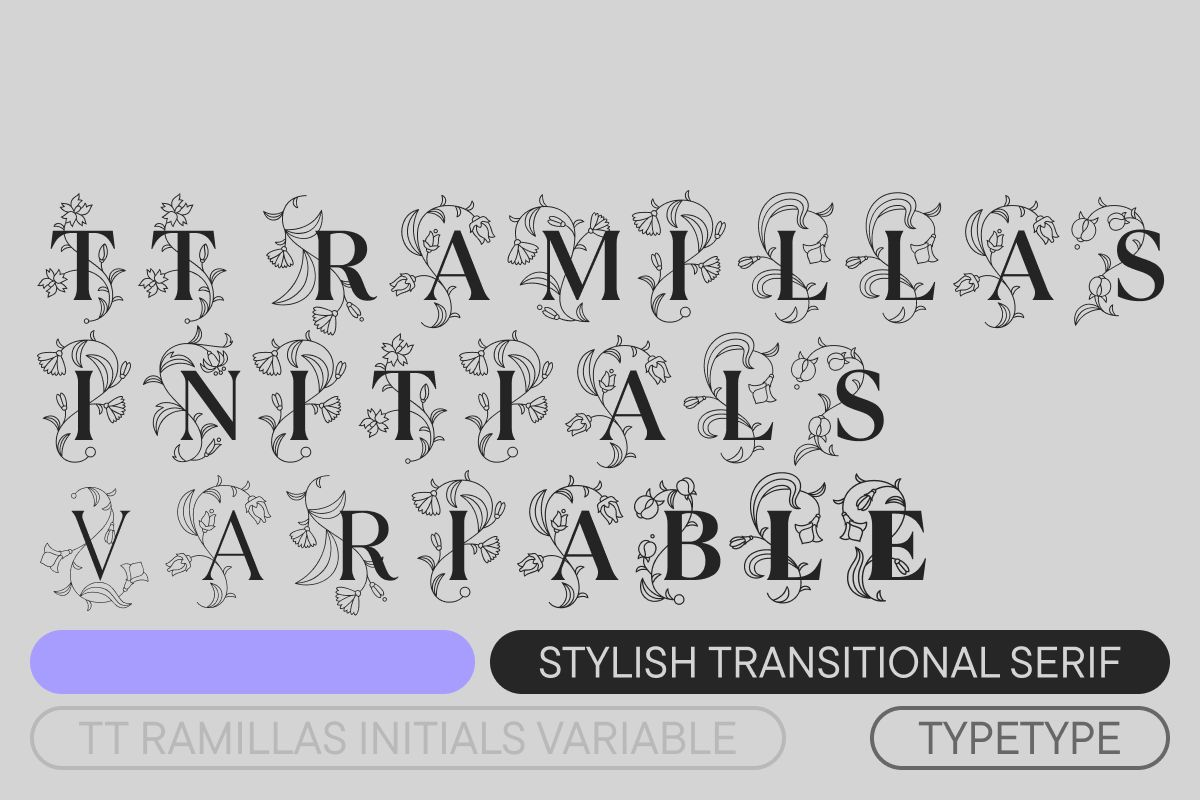
TT Ramillas Initials Variable
TT Ramillas is a stylish transitional serif perfectly adapted to modern reality and requirements. The idea behind this project was to experiment: we aimed to craft a modern serif with precisely balanced details by rethinking traditional forms and meticulously designing each glyph. And we achieved it! TT Ramillas includes decorative subfamilies, Outline and Decor, which work perfectly for headlines and eye-catching, accentuated short texts.